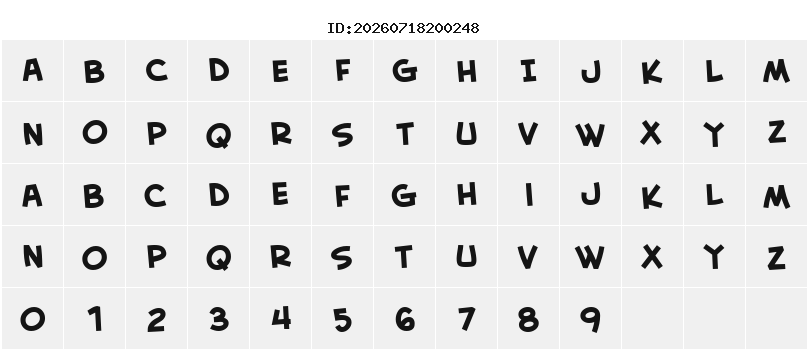
CreativeBlock BB Preview
• Font Name: CreativeBlock BB
• Full Font Name: CreativeBlock BB Bold
About CreativeBlock BB.ttf
CreativeBlock BB.ttf is a modern, elegant sans-serif font designed for ultimate readability and visual harmony. Perfect for branding, headlines, web design, and print materials.